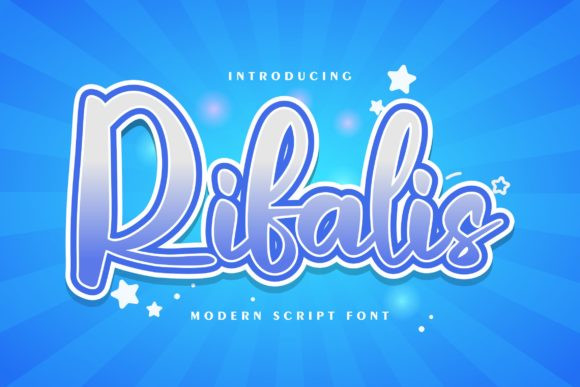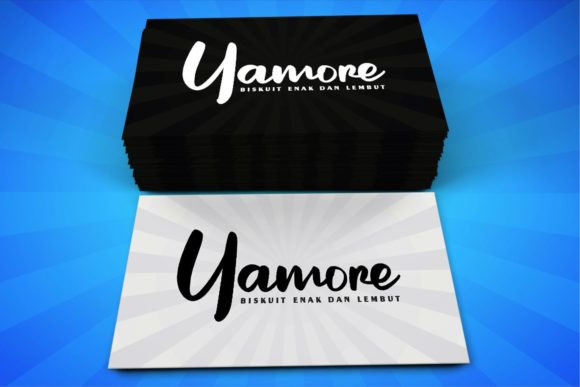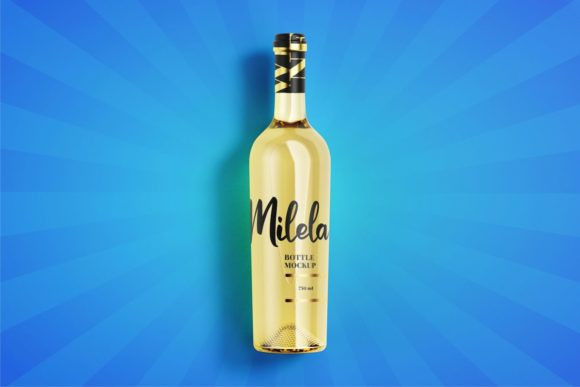
Rifalis Font
Rifalis is a fun script font. Clean and a little bit quirky, this font is the perfect fit for all of your logos, branding, social media, and crafty DIY projects.